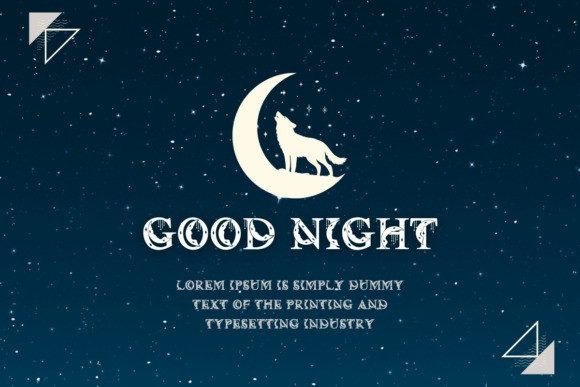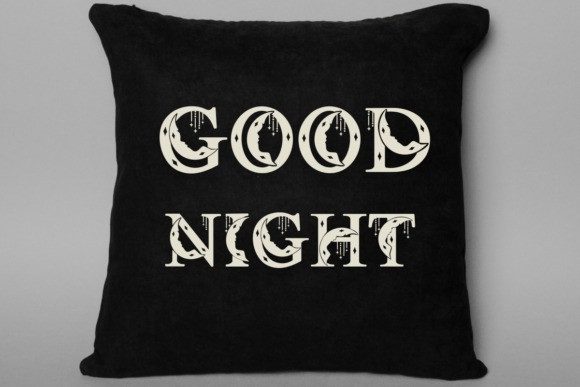
Selene Font
Selene Font is a Decorative font You can use it for taking notes, writing a diary, or making greeting cards. However, you can still use it for other designs, such as banners, content, mugs, cards, shirts, stationery, social media posts, and more!